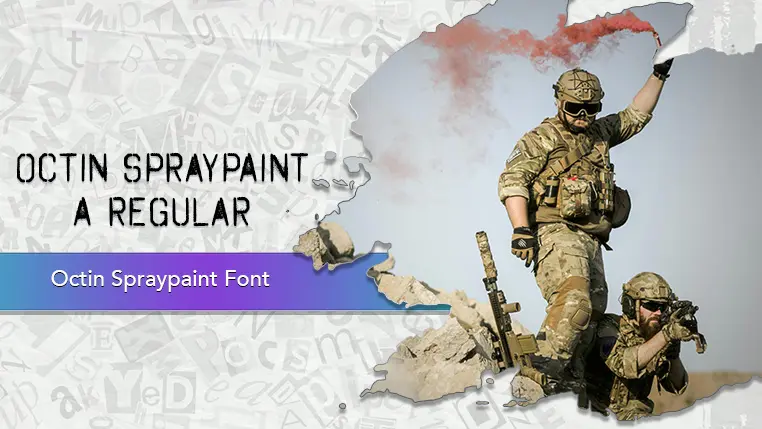
The Octin Spraypaint font family may be ideal for you if you enjoy working on an artistic design project. The lively, expressive look of this typeface, which was created by Typodermic Fonts, makes it ideal for Headlines and Logos. Its street-art vibe is ideal for flyers and posters for concerts, festivals, or underground events. The rugged, spray-painted look is a natural fit for t-shirt designs, clothing brands, and other streetwear graphics. Its bold, athletic feel makes it a solid choice for sports team branding, jersey numbers, and athletic apparel. he stencil and distressed elements work well for graphics related to construction, industrial design, or military themes. and other light-hearted visual projects.
Regular are the one primary font styles of the Octin Spraypaint font family. You may build dynamic, visually appealing text layouts with the distinct flair that each style offers. With crisp, readable lines and a relaxed tone.